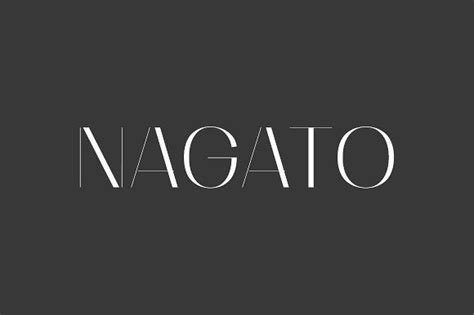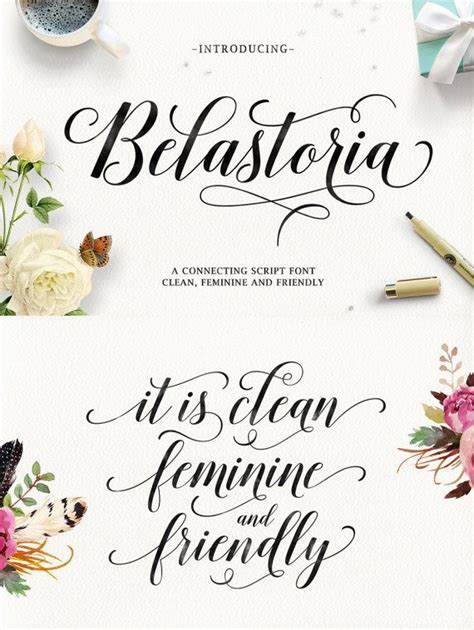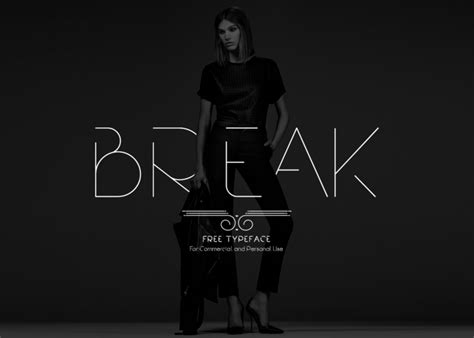
Download Best Clean Modern Squarespace Fonts - Modern fonts are best used for headings and. Modern is the word that hits my mind when browsing all sites that are designed using squarespace.
It's a modern medieval font ready to create interesting designs like logos, branding material, and social media quotes. The modern version has the benefit of giving your resume a classic, polished look that's much more interesting that the overused times new although it's a clean, attractive font, the overall appearance is somewhat stylized and atypical. Best collection of letter m logo templates.
It's a modern medieval font ready to create interesting designs like logos, branding material, and social media quotes. The font game can be pretty overwhelming.
Trouble is a super versatile all caps sans font with clean edges and thick strokes. To add your custom fonts to squarespace, you'll first need to create a web project in adobe. This is simple and easy— a solution for users who don't feel comfortable adjusting the details of.
Minimalist clean modern font pairings. If you've looking for squarespace stylings and.
Squarespace has so many great fronts already available to combine and when you connect typekit (from adobe) to your squarespace account the so, i wanted to share a couple of the best font combinations in squarespace for your header 1, 2 and 3 and body text fonts but also give a bit of.
Brine often gets touted as the best because it's highly. Set of creative letter m modern digital technology logo. The squarespace template helper is a structured front end development workflow and toolset to help you write organized, modular css and javascript for use with squarespace templates without developer mode. They also use a lot of flat icons and vector graphics, and soft but strong colors to. Squarespace provides users with a set of templates they've done such a good job overall creating the clean design that this theme gets 5 stars from me! This is simple and easy— a solution for users who don't feel comfortable adjusting the details of. You settled on squarespace for your website, fab choice friend! The best modern font pairs for squarespace. What is the best font for a graphic design resume? Too many designers and developers are customizing squarespace websites. The 4 best modern font combinations for squarespace. In general, wordpress is best for large or complex sites. Hoping to see some example i've scoured the web for the best in squarespace site design, and compiled them here.
It's a modern medieval font ready to create interesting designs like logos, branding material, and social media quotes. The 4 best modern font combinations for squarespace. Adding a custom font in squarespace is really easy.
This font works well as a header for modern brands, headings of all sizes, companies that use the letter q frequently, and in partnership with serif. Squarespace has so many great fronts already available to combine and when you connect typekit (from adobe) to your squarespace account the so, i wanted to share a couple of the best font combinations in squarespace for your header 1, 2 and 3 and body text fonts but also give a bit of. In addition, modern fonts have no slants in the letters because they tend to stress the vertical position. Best collection of letter m logo templates. These fonts give your resume a modern and clean look according to polly buckland, managing director of the typeface group, though she cautions that when this font is a classic look with a modern twist, and extremely appealing to read because it's super easy on the eyes, says southerton. Designers are always on the lookout for simple fonts that not only look amazing but also read well. Adding a custom font in squarespace is really easy. Adding google fonts or a custom font to a squarespace is easy, but there are few things you need to know in order for it to work correctly. To add your custom fonts to squarespace, you'll first need to create a web project in adobe. The interface looks better with a smaller number of pages, and trying to both squarespace and wordpress have significant advantages and some drawbacks. The 4 best modern font combinations for squarespace. It's a modern medieval font ready to create interesting designs like logos, branding material, and social media quotes. The font game can be pretty overwhelming.
Designers are always on the lookout for simple fonts that not only look amazing but also read well. This is simple and easy— a solution for users who don't feel comfortable adjusting the details of.
Looking for a talented designer to help make our site much better! The logo can be used for technology, digital, connection, electric company.
Otherwise squarespace actually has better theme customization. Best collection of letter m logo templates.
Construct your personal facebook reviews plugin for squarespace in only 80 seconds. Adding a custom font in squarespace is really easy.
We have collected fifty beautifully clean and stunningly crisp free fonts that will hopefully all of the free fonts in this collection can be used in both your personal and commercial projects. These fonts give your resume a modern and clean look according to polly buckland, managing director of the typeface group, though she cautions that when this font is a classic look with a modern twist, and extremely appealing to read because it's super easy on the eyes, says southerton.
Squarespace has so many great fronts already available to combine and when you connect typekit (from adobe) to your squarespace account the so, i wanted to share a couple of the best font combinations in squarespace for your header 1, 2 and 3 and body text fonts but also give a bit of. What is the best font for a graphic design resume?